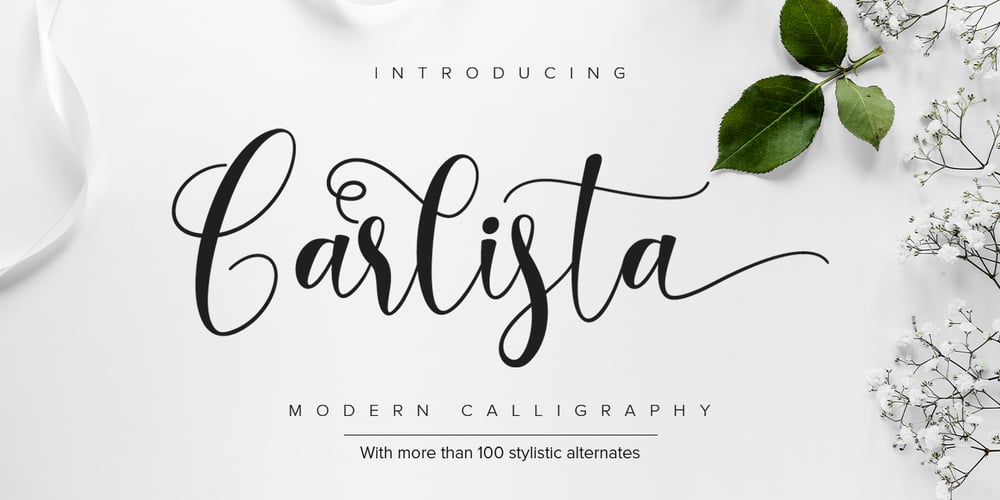
Carlista Font Family was designed by Ditya Dewi Anandita and published by Yumna Type. Carlista contains 1 styles and family package options. Carlista is a beautiful and modern typeface that is best used for weddings, branding, logotype, and quotes.Features : Beautiful Ligatures Beautiful Alternates + Swashes PUA Encoded Multi-lingual Support Numerals and Punctuation Beginning Swash and Ending Swashes (a-z)